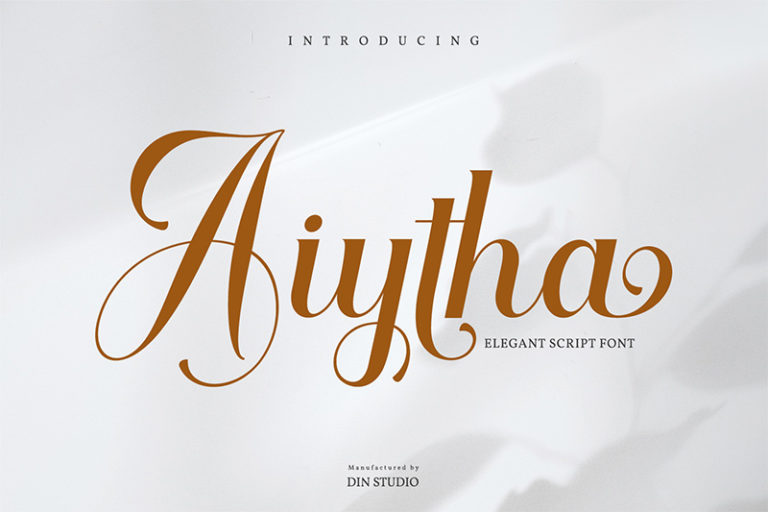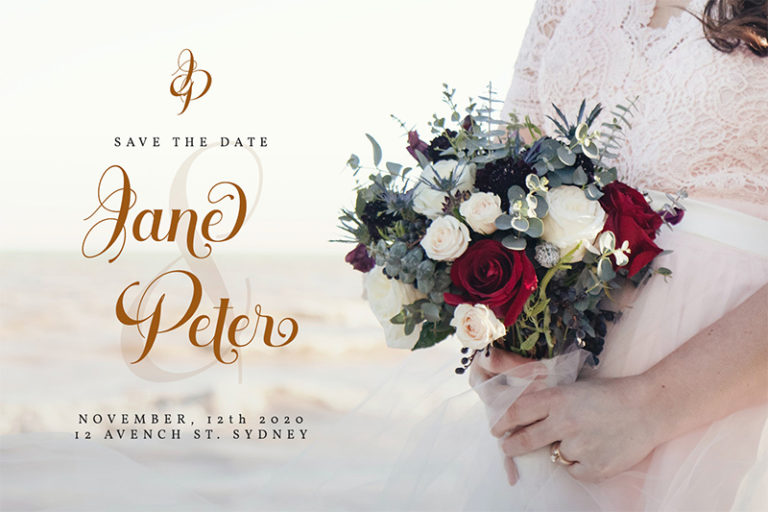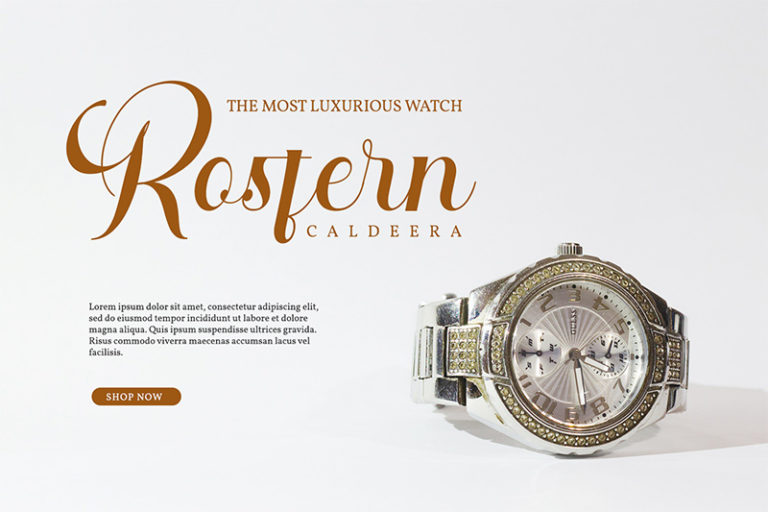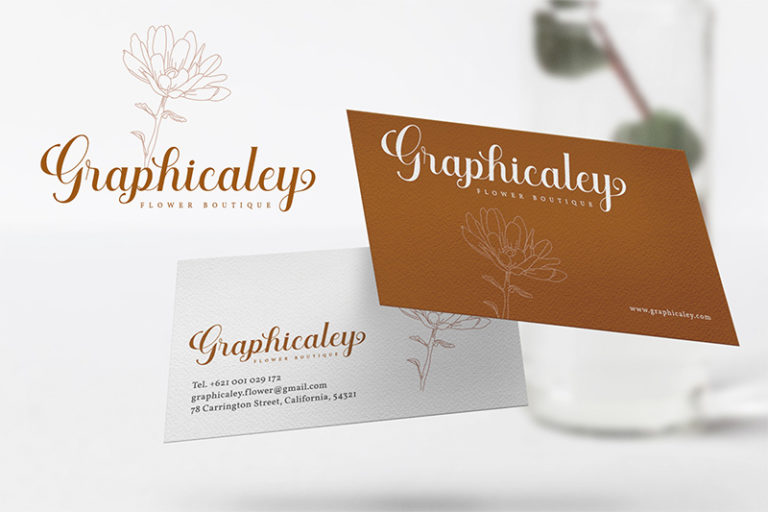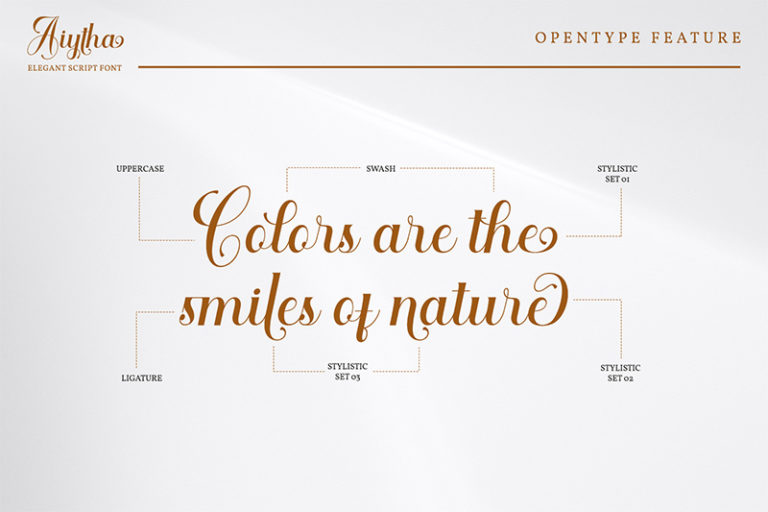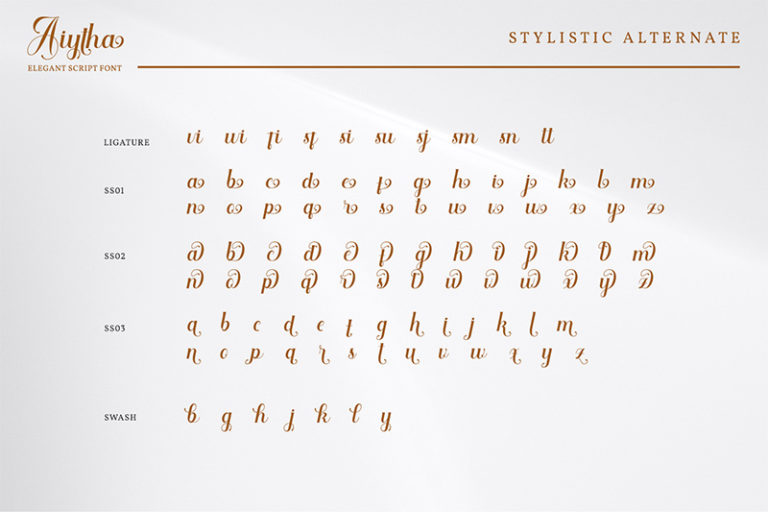
Aiytha – Modern Calligraphy Font
Aiytha
Aiytha is a modern calligraphy font showing a beautifully attractive typeface made for any professional project brandings. It is best used for logos, brandings, weddings and quotes. See the previews above to get some inspiration on how you can use them.
Features include:
- Stylish Sets
- Beautiful Ligatures
- Swashes